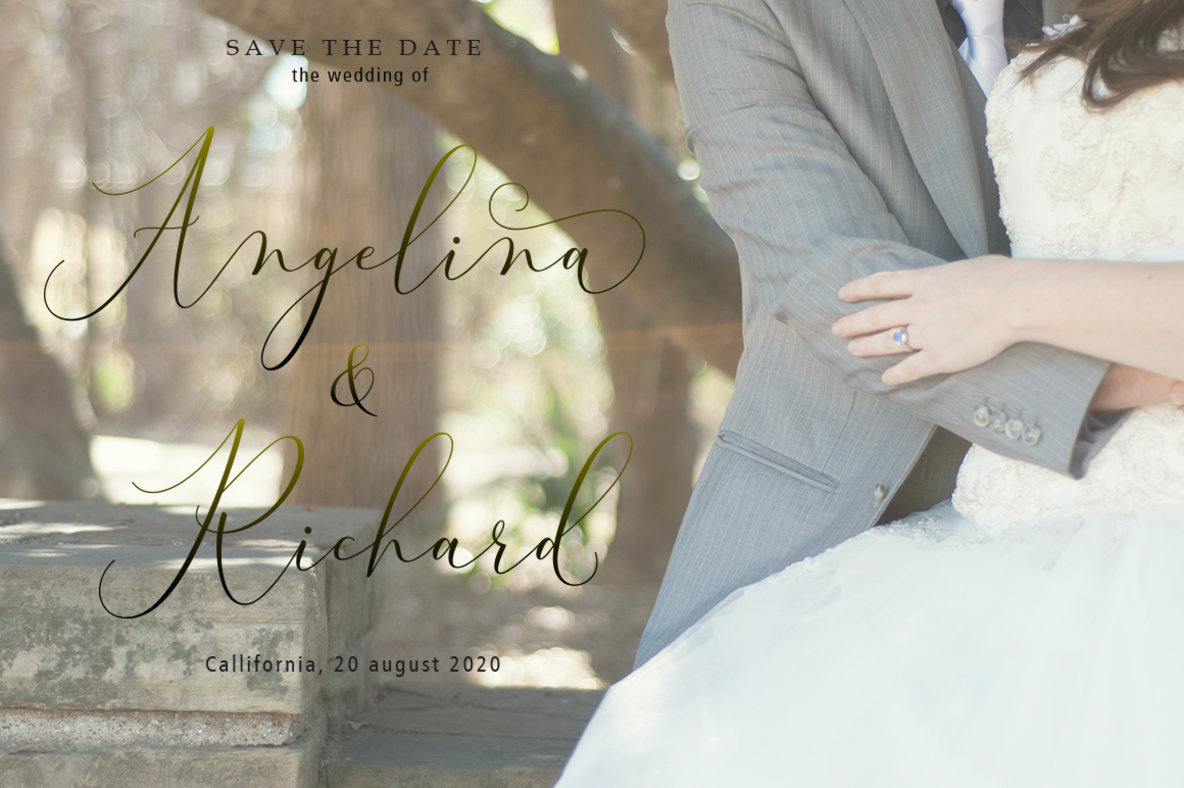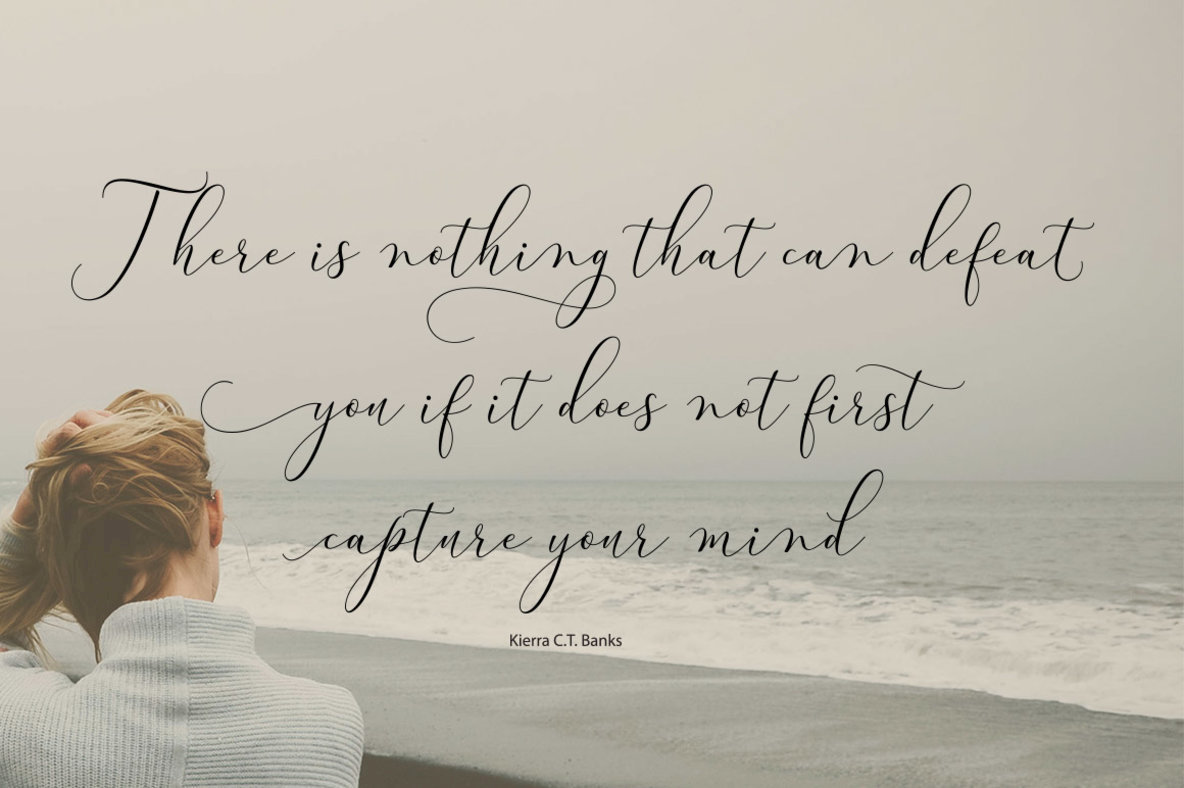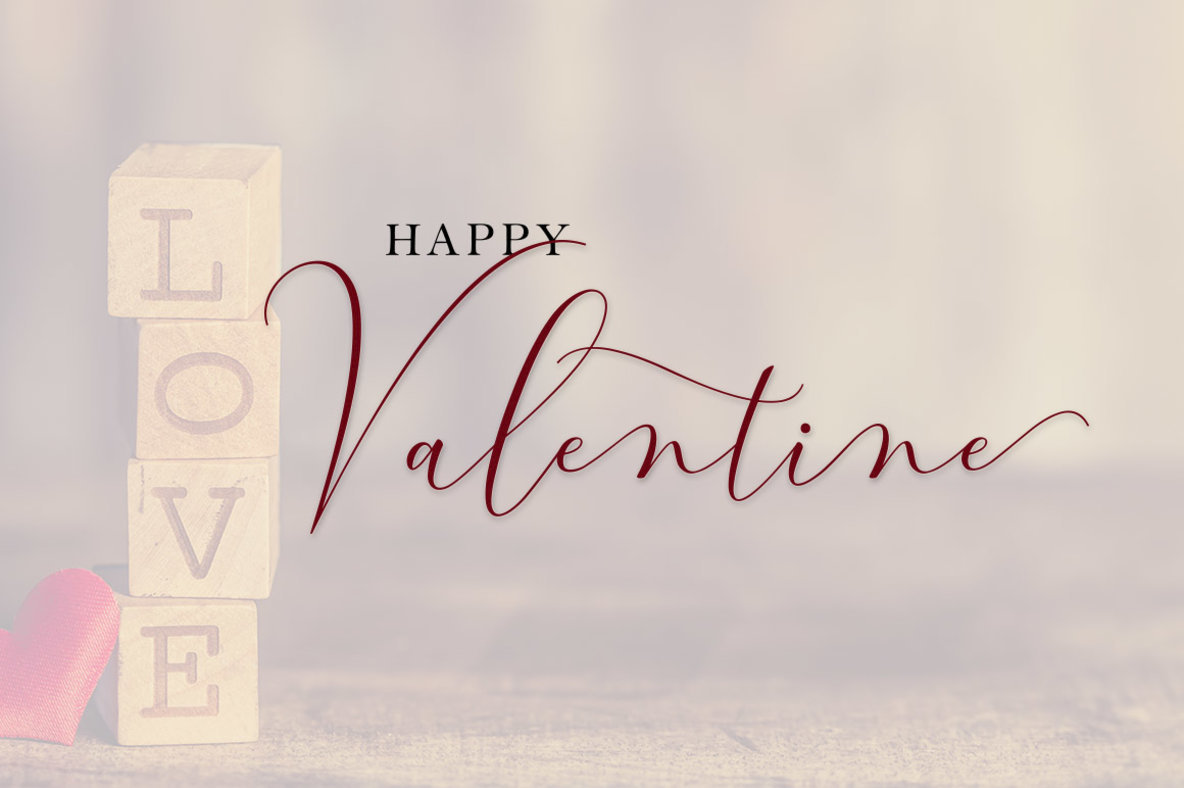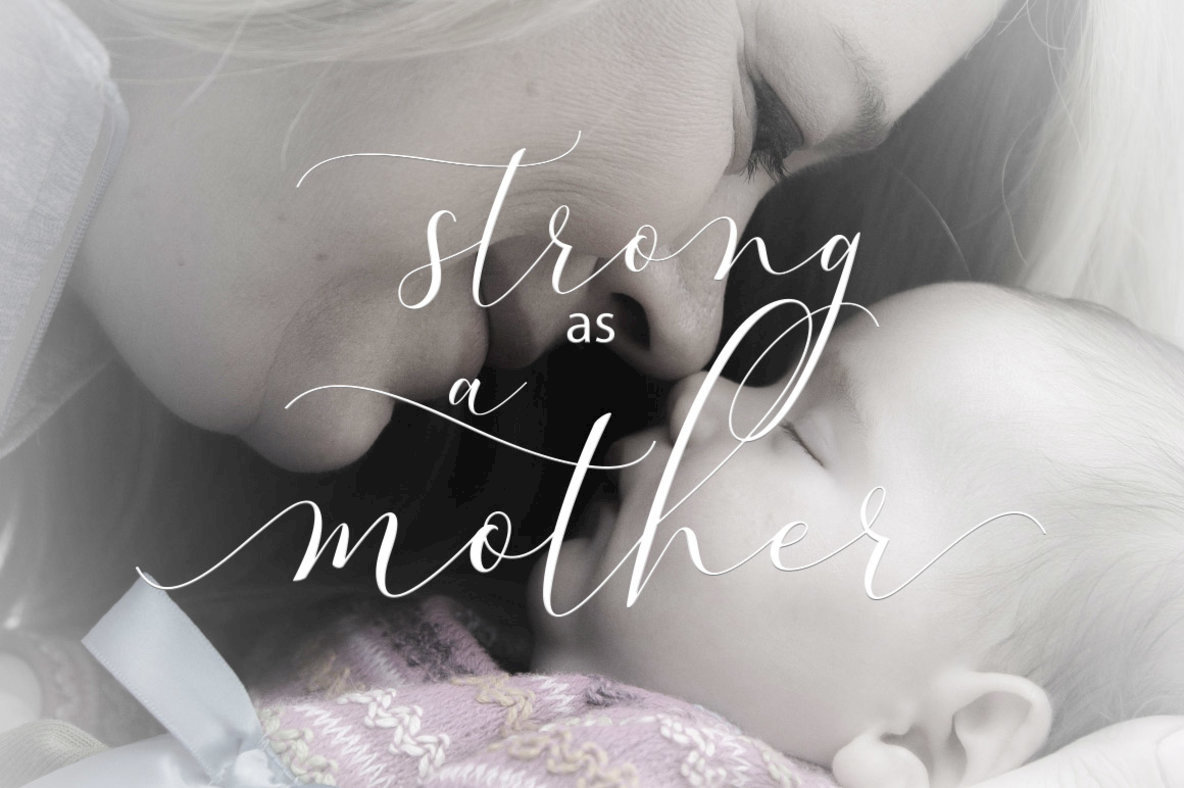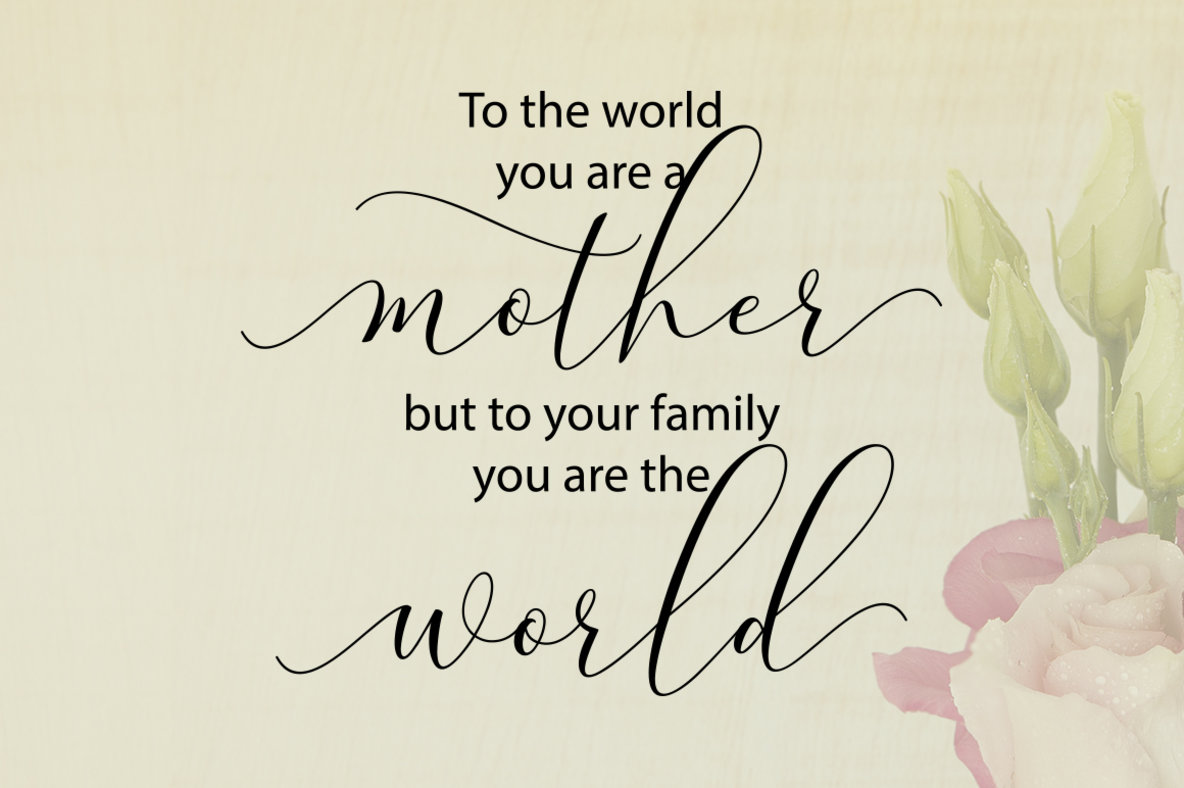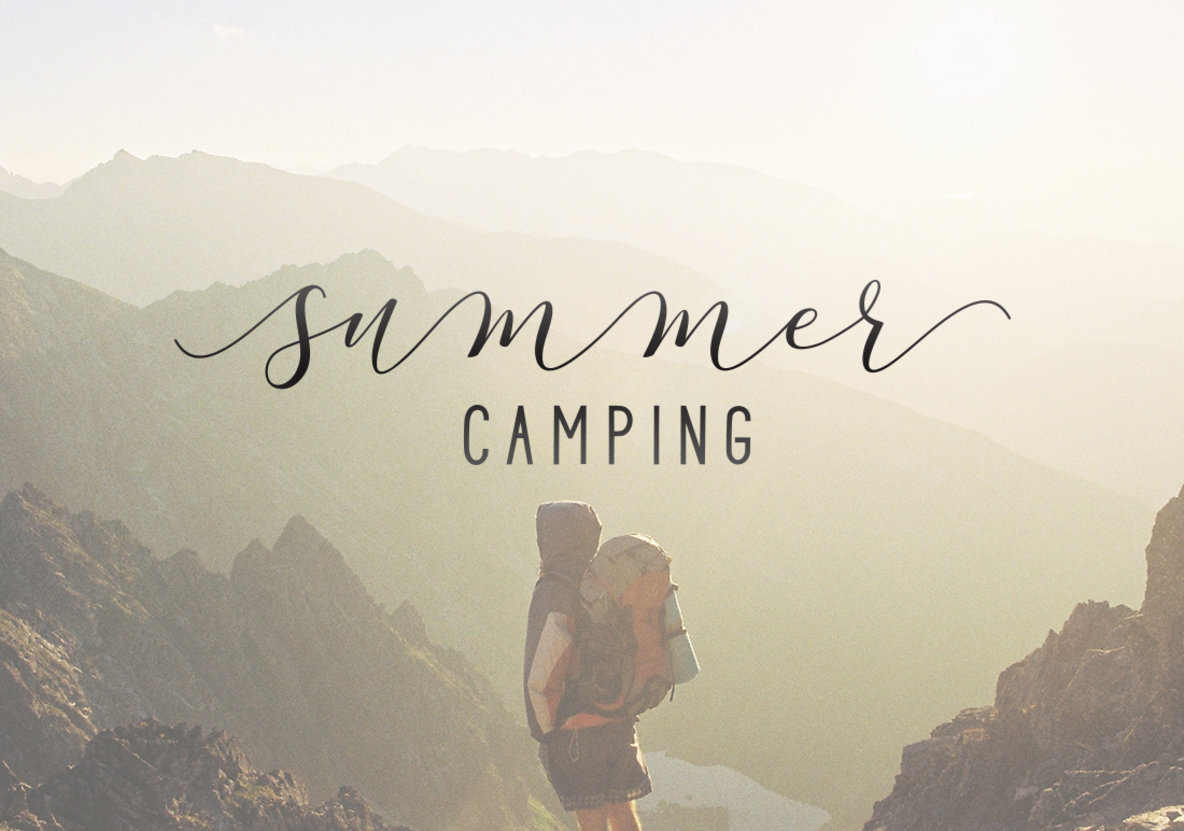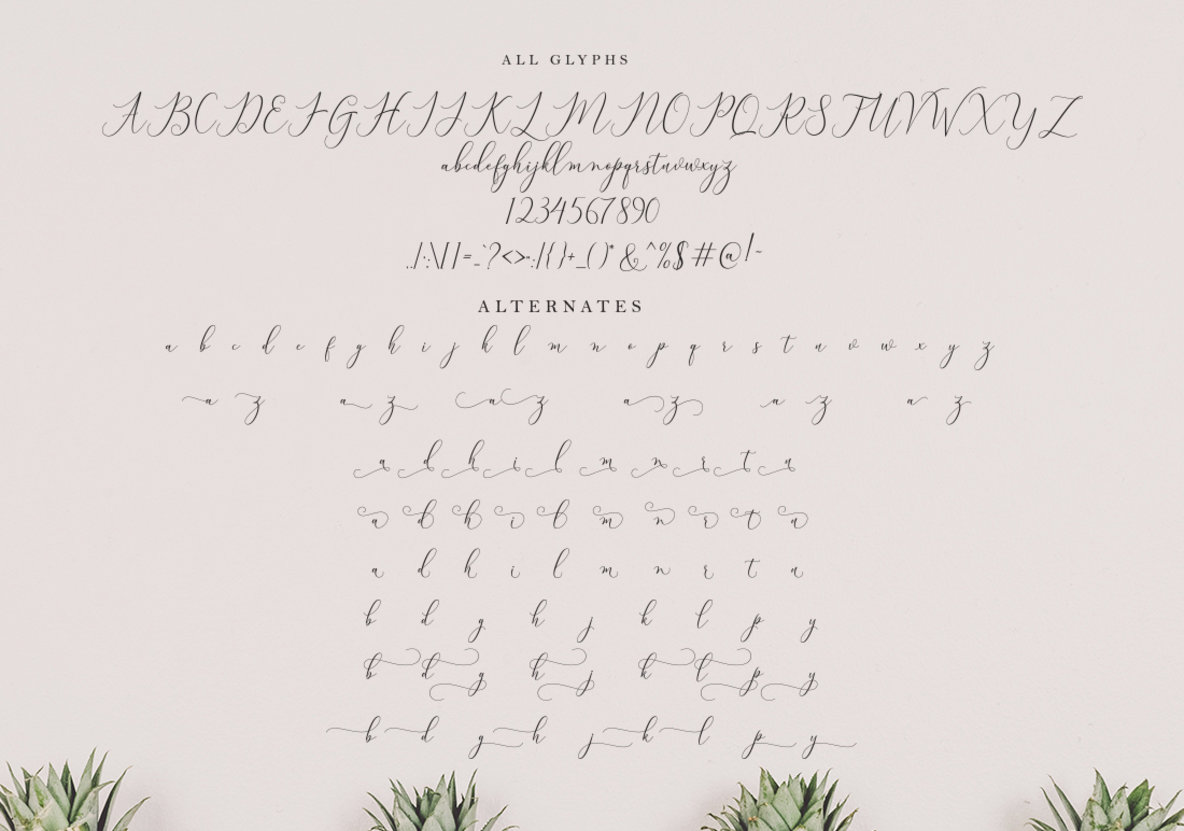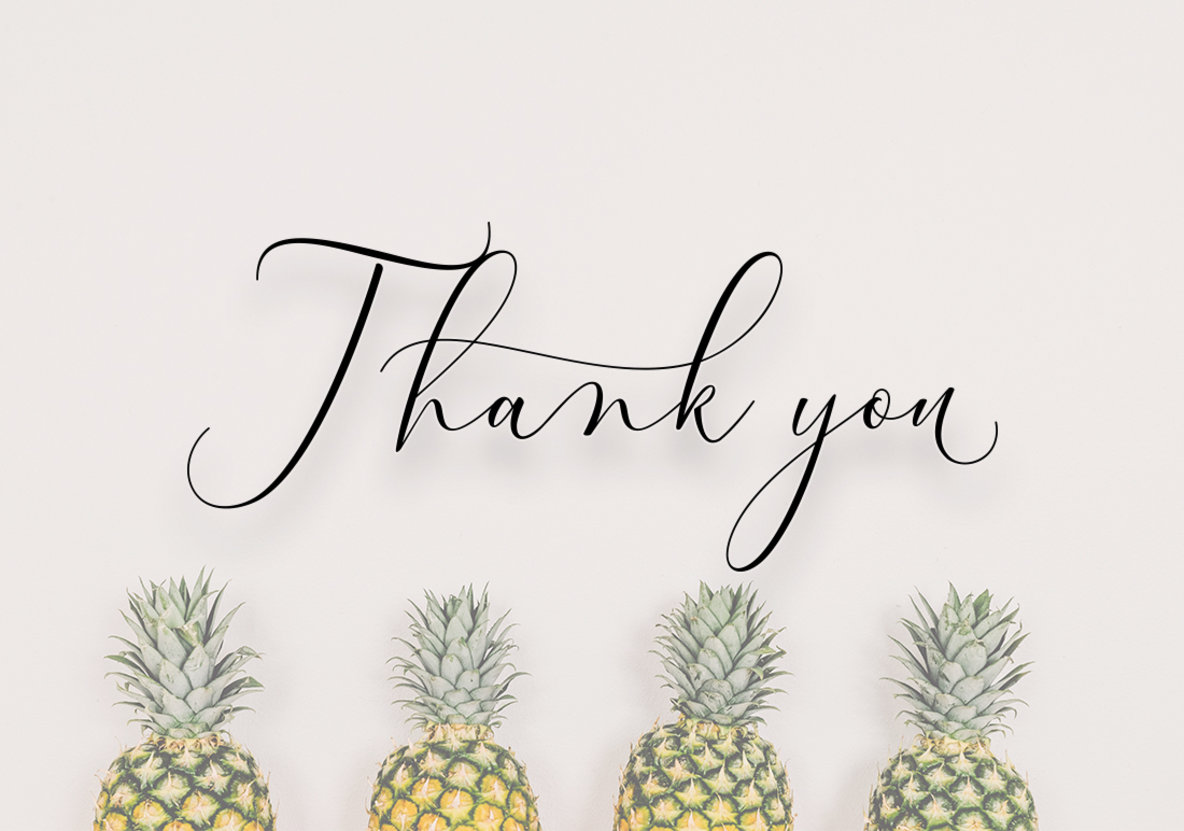
Bitthai Font
Bitthai Script captivates with over 530 glyphs, offering designers an array of creative possibilities. This elegant typeface integrates seamless OpenType features such as Swash, Stylistic Sets, Stylistic Alternates, and Contextual Alternates. Creatives can easily utilize these features through compatible programs like Adobe Illustrator, InDesign, Photoshop, Corel Draw, and even Microsoft Word, making it a flexible choice for various projects.Bitthai: A Versatile Script Font with Abundant Characters